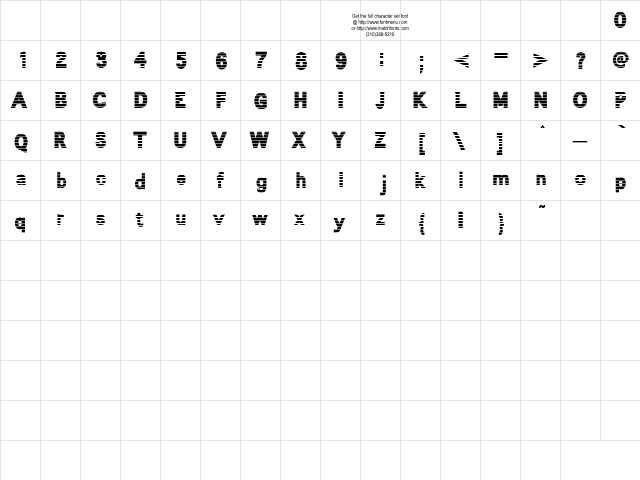
Big Bacon Tryout Regular
Design Context for Big Bacon Tryout Typeface
Big Bacon Tryout is a composed and adaptable typeface that performs quietly and consistently across a wide range of design contexts.
Pro Tip: Use Big Bacon Tryout in both headline and body roles to test its range before committing to a single application.